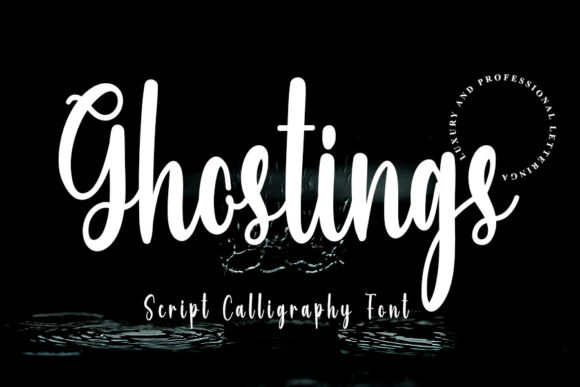
Introducing Ghostings Font, a captivating script font overflowing with charm and grace. Embark on a whimsical journey as you discover endless possibilities with this extraordinary creation from Inermedia STUDIO.
Ghostings Font weaves an enchanting tale of beauty, capturing the essence of the beloved classic, Beauty and the Beast. Its intricate swirls and elegant curves evoke a sense of timeless romance, adding a touch of magic to any design.
With Ghostings Font, you hold the key to unlocking a world of captivating designs. Transform wedding invitations into cherished keepsakes, infuse thank you cards with heartfelt gratitude, and let quotes and greeting cards blossom with an enchanting allure. This remarkable font breathes life into logos and business cards, imparting a distinctive personality that leaves a lasting impression.
Every stroke of Ghostings Font is a testament to its versatility. It effortlessly complements an array of creative endeavors, adding a touch of sophistication to invitations, menus, posters, and brochures. Its ability to effortlessly blend with various design styles makes it a true creative chameleon.
But Ghostings Font is not merely a collection of letters; it is an expression of artistry. Its delicate lines intertwine, forming an ethereal tapestry of beauty. Each character dances across the page, telling tales of love, dreams, and aspirations.
Indulge in the exquisite details of Ghostings Font, where every curve and flourish is meticulously crafted to evoke emotion and create a visual masterpiece. Experience the joy of crafting designs that whisper elegance, charm, and a touch of magic.